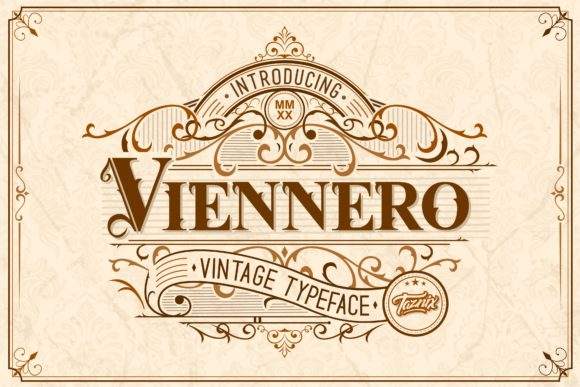
Embrace a Blast from the Past with Viennero: Your Gateway to Vintage Charm
Delve into the captivating realm of Viennero, an awe-inspiring display font that transports you to a bygone era of elegance and sophistication. This exquisite font, crafted with meticulous attention to detail, embodies the essence of vintage allure, promising to elevate your designs to new heights of charm and distinction.
Unleash Your Creativity with Viennero's Timeless Appeal
Viennero's captivating vintage aesthetic lends an air of timeless charm to any project it graces. Picture your designs adorned with this elegant font, evoking a sense of nostalgia and a palpable connection to the past. From logos and branding to packaging and signage, Viennero possesses the versatility to transform your creative visions into captivating works of art.
Craft a Unique Identity with Viennero's Vintage Flair
With Viennero as your creative companion, you'll embark on a journey of self-expression, leaving an unforgettable mark on your audience. Viennero's meticulously crafted characters exude a sense of individuality, allowing you to weave a tapestry of words that resonate with personality and style. Elevate your designs to extraordinary heights as you watch your creations captivate and inspire.
Experience the Viennero Difference: Elegance, Versatility, and Timeless Charm
Embrace Viennero and unlock a world of creative possibilities. Let your imagination soar as you explore the endless applications of this versatile font. From eye-catching headlines to captivating body text, Viennero effortlessly adapts to your creative vision, ensuring a seamless blend of form and function. Dive into the depths of vintage charm and leave a lasting impression with every design you create.